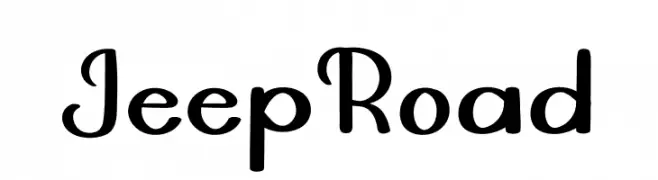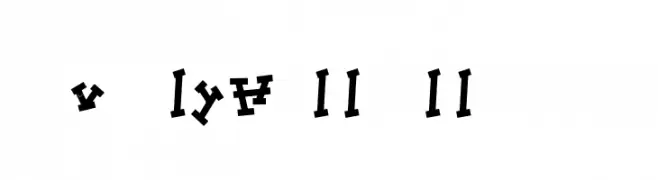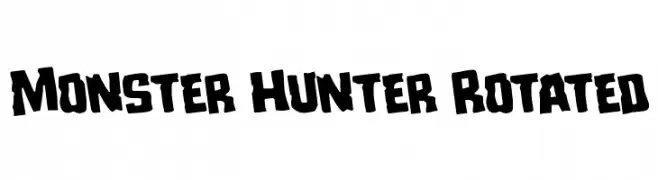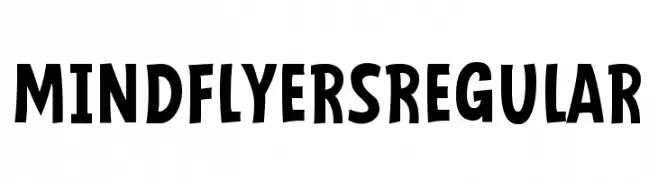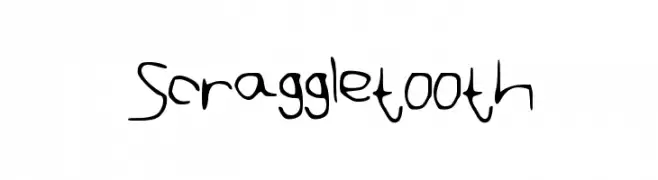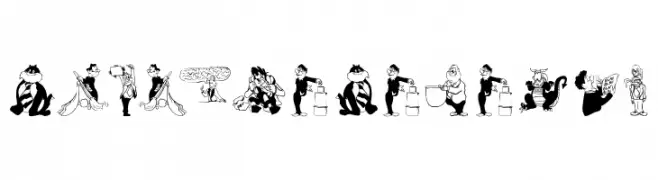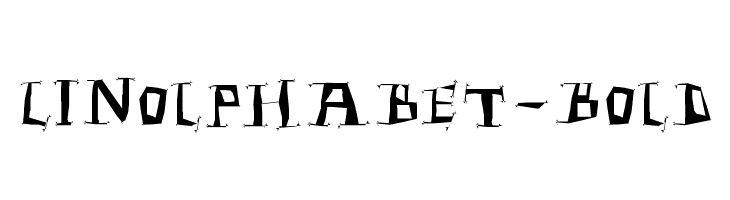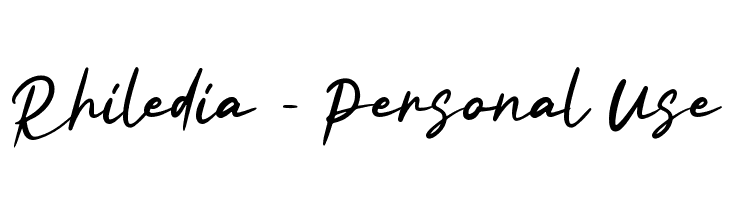
A flowing, cursive script font with elegant swashes and a modern twist.
A playful, rounded font with a handwritten feel and consistent stroke thickness.
A quirky, vintage-style font with bold, irregular letterforms and a playful, rustic charm.
A bold, rugged font with thick, uneven strokes and a dynamic, energetic style.
A playful, hand-drawn font with bold, rounded characters.
A bold, brush-style handwritten font with dynamic slanted strokes.
A playful and bold font with slightly irregular, dynamic letterforms.
A playful, quirky handwritten font with uneven strokes and irregular shapes.
Cartoonish, political caricature font with unique illustrated glyphs.